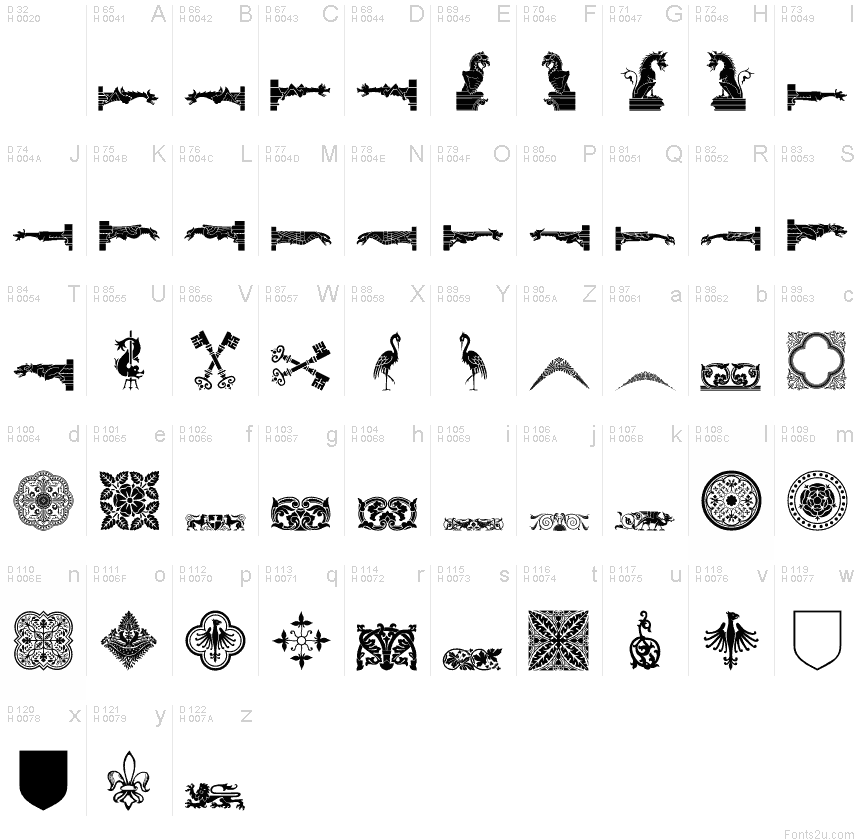
Medieval Dingbats
Medieval Dingbats font by Flight of the Dragon is a free dingbat font with medieval ornament pieces, curling vine borders, floral rosettes, and a round filigree medallion. The set mixes dense leaf clusters with symmetrical framed motifs, so it feels more like a trim and emblem collection than a plain symbol set.
Medieval Dingbats works well for invitations, certificate borders, scrapbook accents, label frames, and fantasy-themed stationery where a single motif can carry the page. This free font also suits chapter openers, ornamental dividers, logo marks, and decorative packaging because the shapes are already arranged like ready-made embellishments.